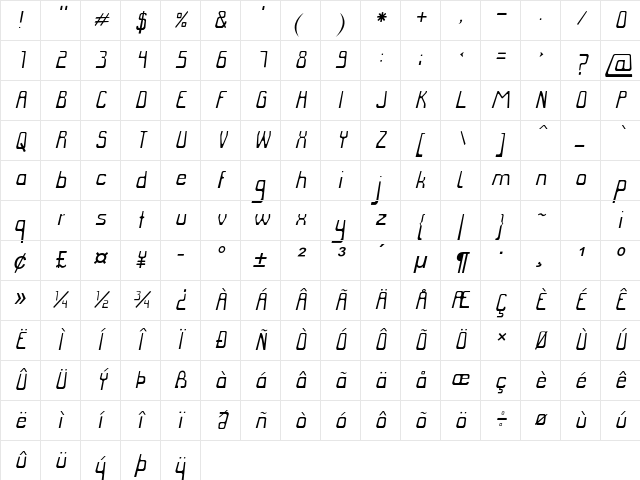
Diasmo Italic
Design Context for Diasmo
Diasmo is a composed and adaptable typeface that performs quietly and consistently across a wide range of design contexts. The slanted form adds forward momentum and visual energy.
Pro Tip: Use Diasmo for emphasis, pull quotes, and subheadings where its slanted energy can add rhythm to the layout.